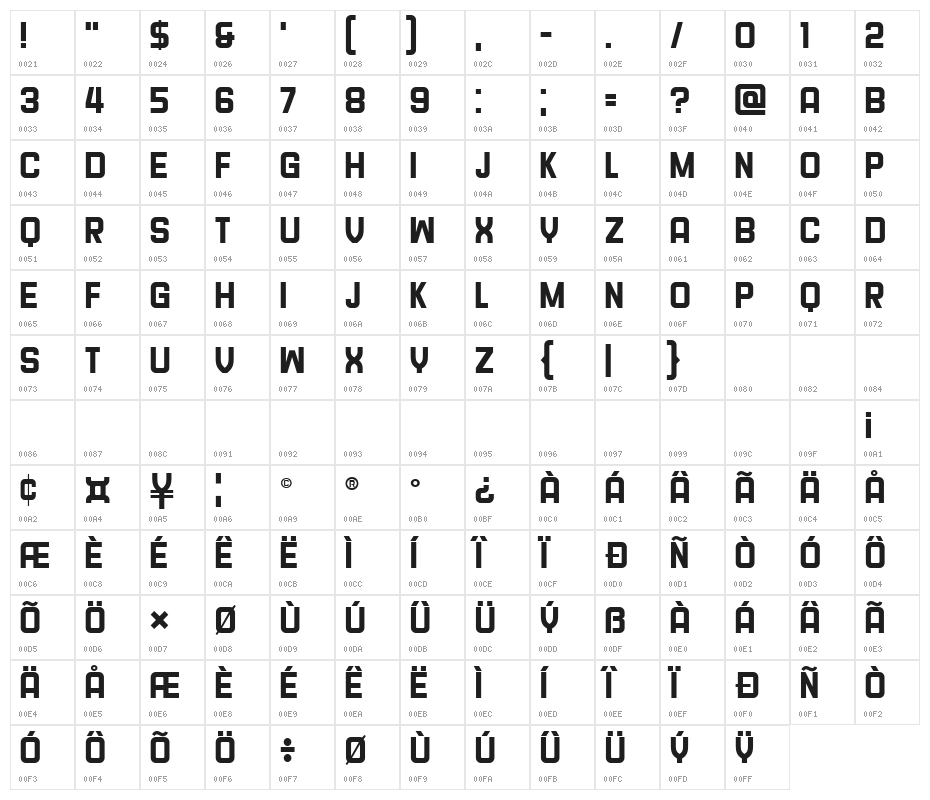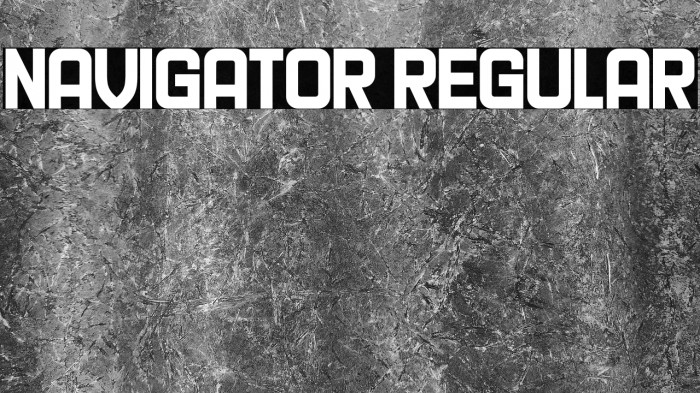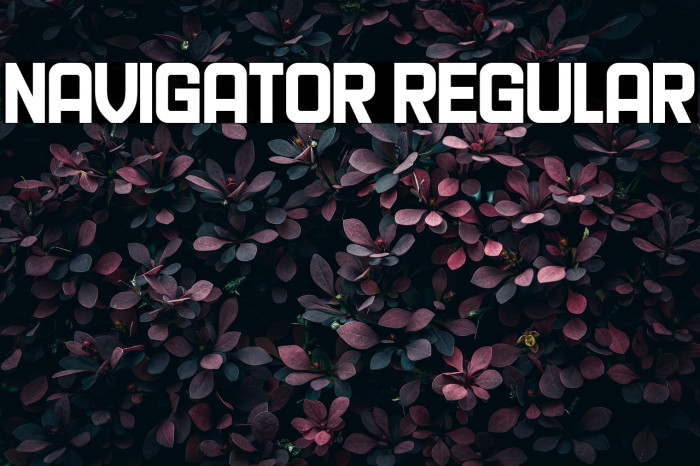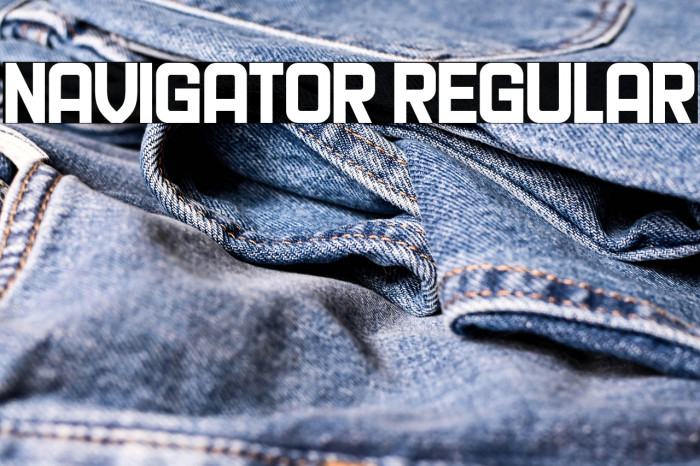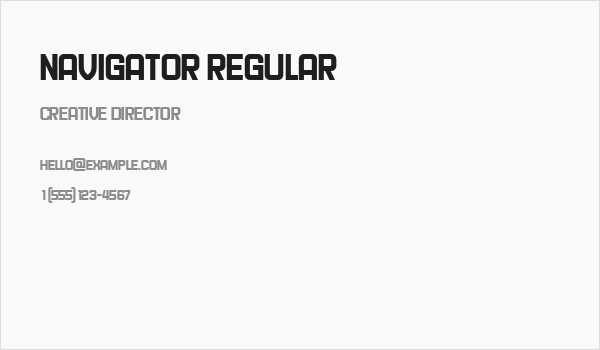
Navigator Regular Font
Navigator Regular Description
This font features a bold, geometric design with a strong presence. The characters are uniformly wide, giving it a monospaced appearance, although it is not strictly monospaced. The uppercase and lowercase letters share a consistent height, emphasizing a modern and structured look. The strokes are thick and uniform, contributing to a high contrast between the characters and the background. The font's overall style is clean and contemporary, making it suitable for a variety of digital and print applications. Its boldness ensures readability at various sizes, while the geometric shapes add a touch of modernity.
| Proposed Projects | Ideal for headlines, posters, branding, and digital interfaces where a strong, modern presence is desired. |